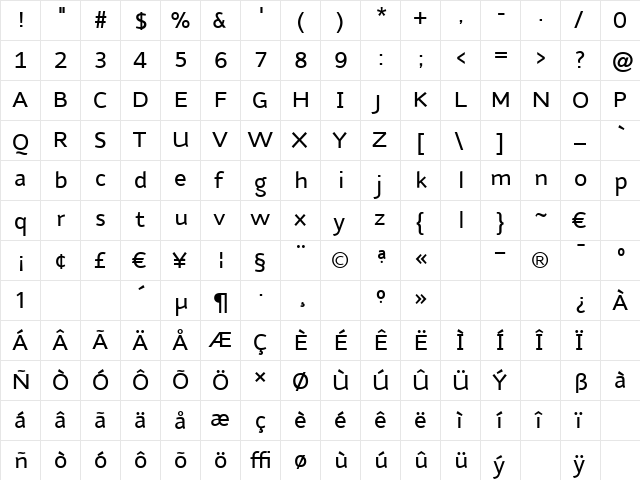
NubianAltMedium Regular
Design Context for NubianAltMedium Typeface
NubianAltMedium offers clean, dependable letterforms without strong stylistic allegiance, making it a practical choice for designers who need flexibility.
Pro Tip: Use NubianAltMedium in both headline and body roles to test its range before committing to a single application.